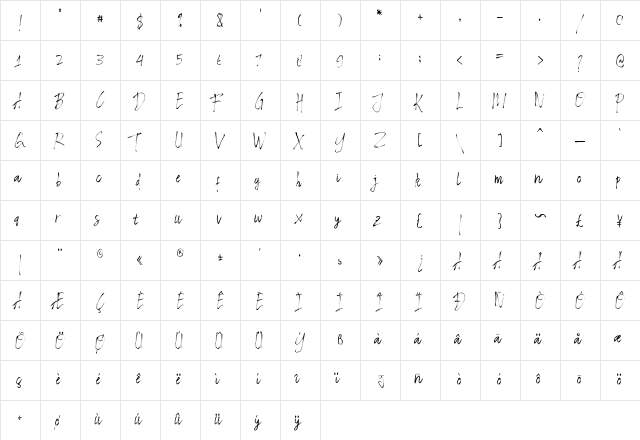
Raster Brush Regular Font Preview
Raster Brush Regular
Raster Brush Regular Font Details
| Foundry | Fajriadi |
| Designer | Fajriadi |
Design Context for Raster Brush Typeface
Raster Brush flows with the natural rhythm of handwritten lettering, making it ideal for designs that call for warmth and personal expression.
Font Pairing: Combine Raster Brush with a simple geometric sans for maximum contrast — the tension between flowing curves and clean structure is a classic typographic pairing.
Pro Tip: Pair Raster Brush with a clean sans-serif for supporting text. The contrast between fluid script and geometric structure creates an elegant typographic hierarchy.